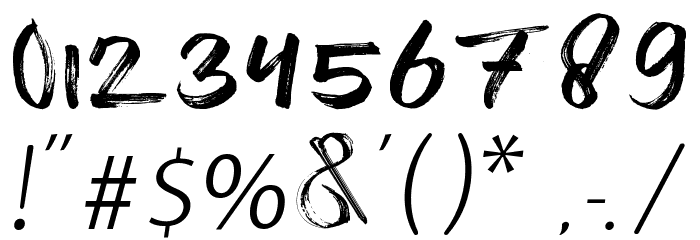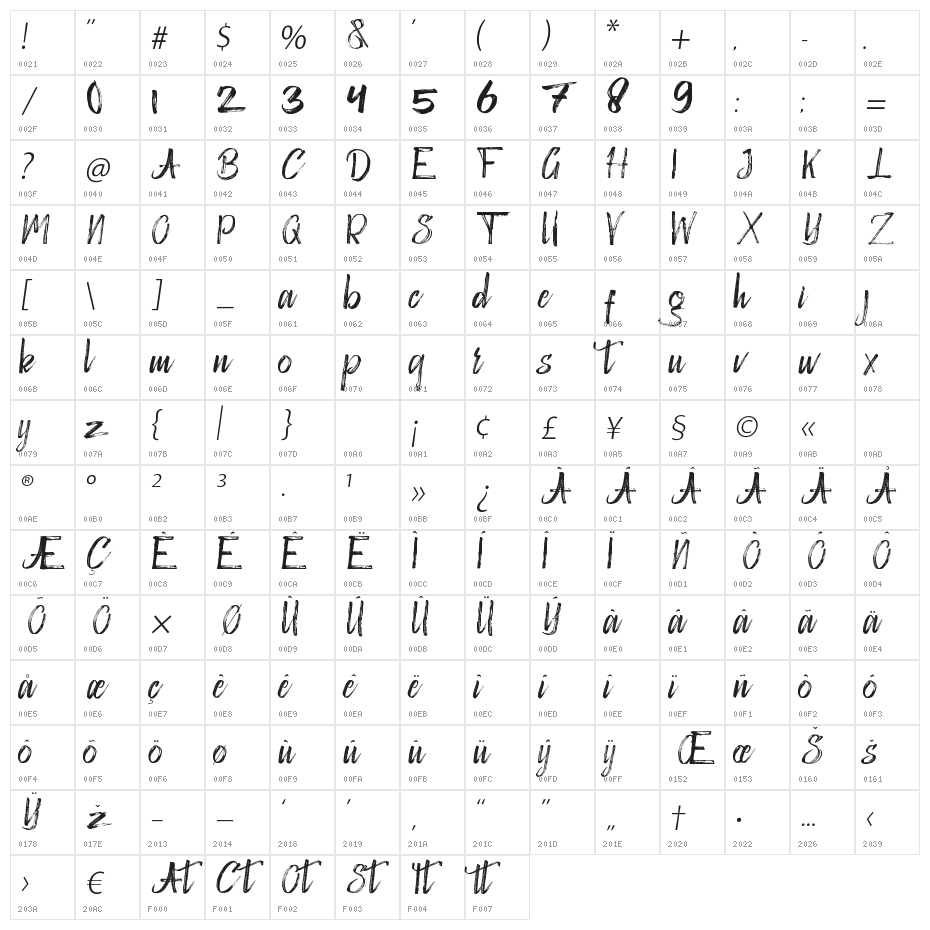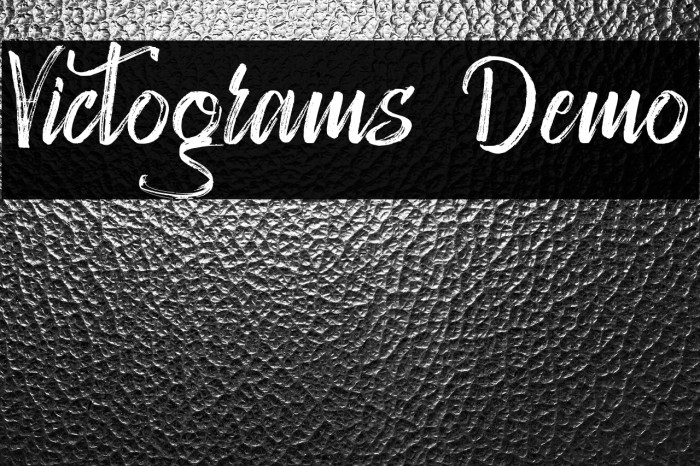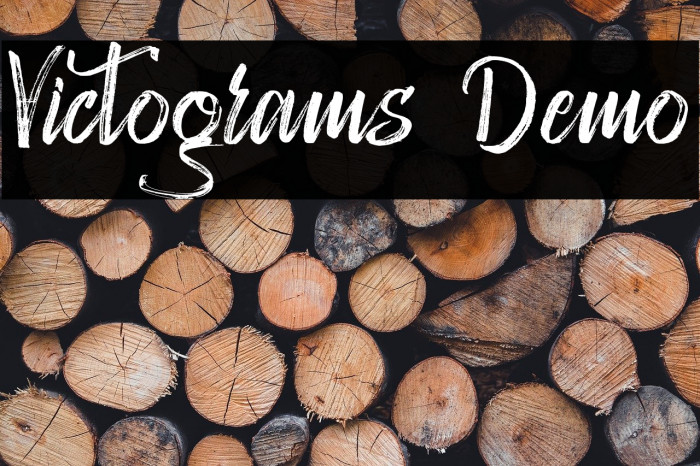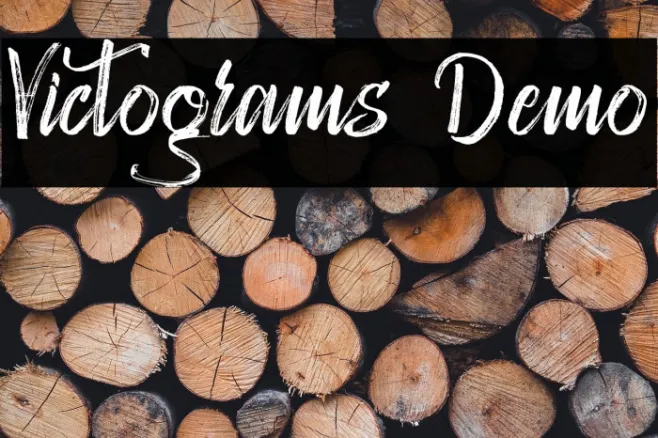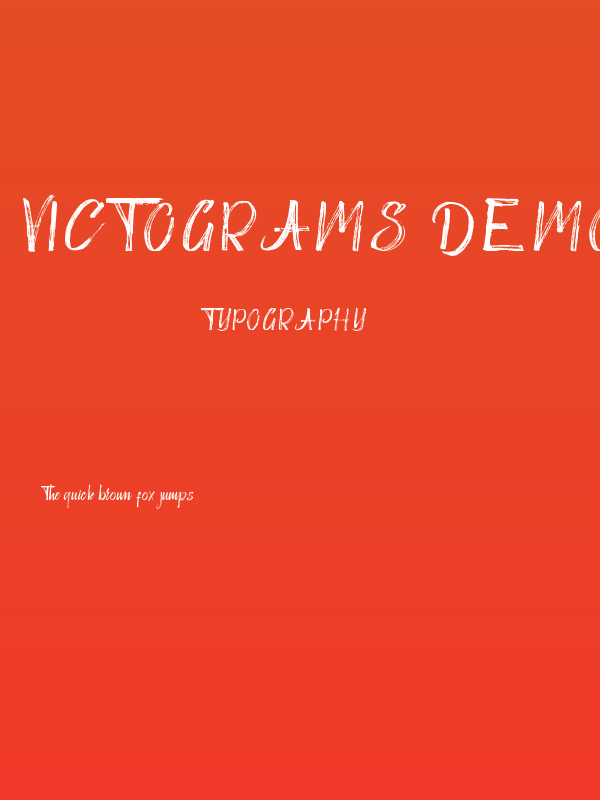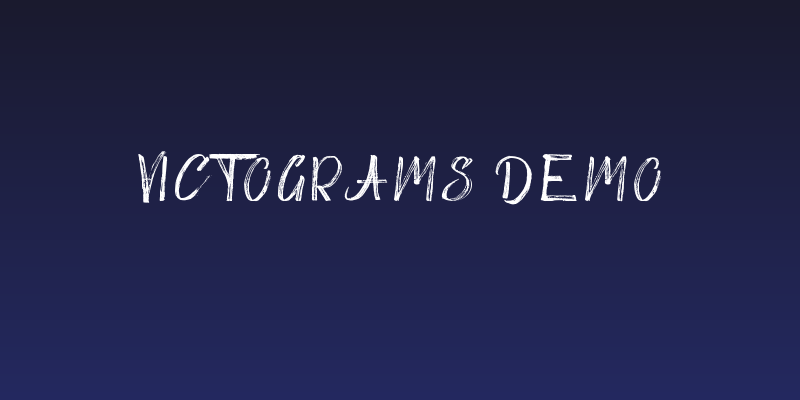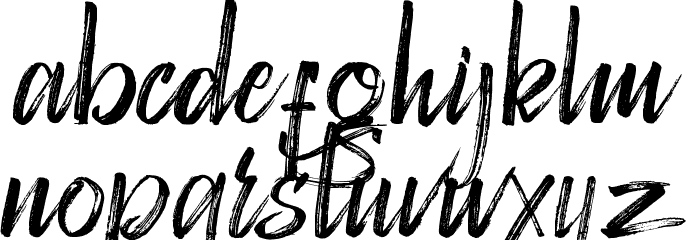
Victograms Demo Font
Victograms Demo Description
This font exhibits a dynamic and expressive style, characterized by its brush-like strokes and uneven texture. The uppercase and lowercase letters have a hand-drawn appearance, with varying thickness and a slightly rough edge that adds to its artistic flair. The numerals and special characters maintain this textured, brush-stroke quality, making the font feel lively and energetic. Its unique style is suitable for projects that require a personal, handcrafted touch, such as artistic posters, creative branding, or invitations. The font's overall appearance is both modern and artistic, with a decorative flair that makes it stand out.
| Proposed Projects | Artistic posters, creative branding, invitations, and other projects needing a handcrafted touch. |